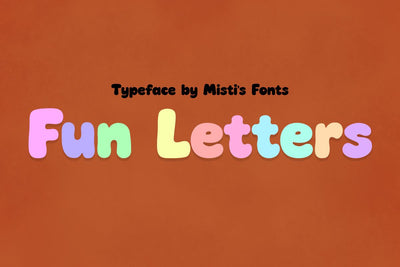
Fun Letters
Fun Letters is a playful, bold typeface full of charm and color. Its rounded shapes and friendly vibe make it perfect for kids’ projects, posters, crafts, and creative designs that need a cheerful, eye-catching touch.